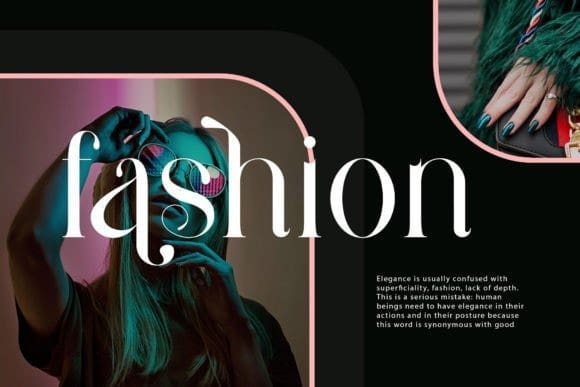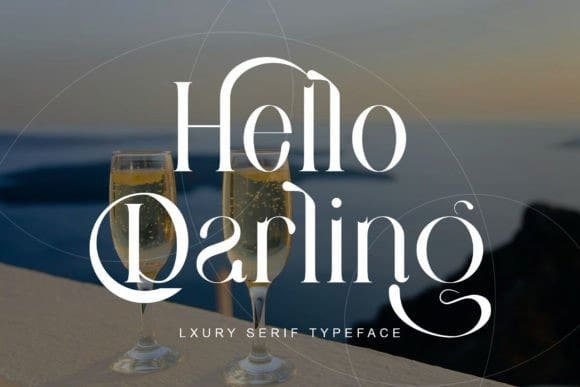
Gallits Font
Gallits Font is an elegant and classy serif typeface. This font is both modern and nostalgic and works great for logos, magazines, and social media posts. No matter the topic, this font will be an incredible asset to your fonts’ library, as it has the potential to elevate any creation.